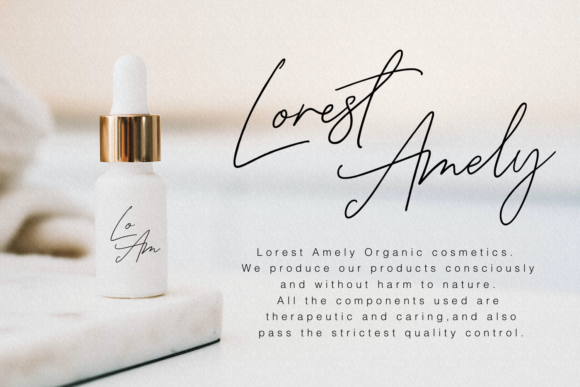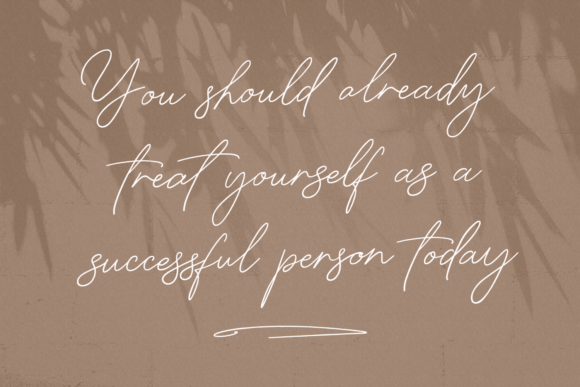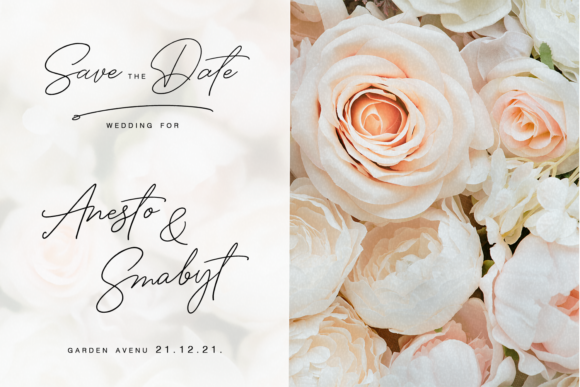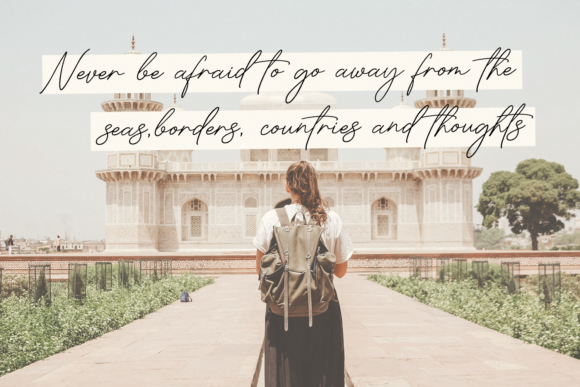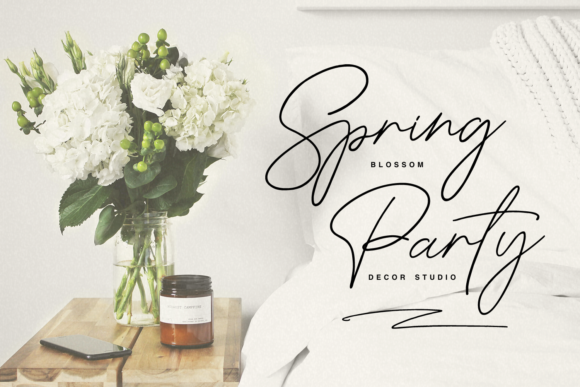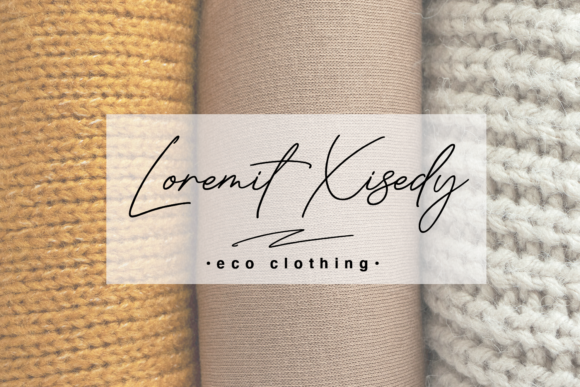
The Perfect Font for Making a Lasting Impression
There’s nothing quite like the thrill of a creative breakthrough – the moment when all the pieces come together and your design takes shape. For many designers, it’s a feeling that never gets old, and it’s what drives us to push the boundaries of what’s possible. Whether you’re crafting a logo, branding a new business, or simply adding a touch of elegance to a quote, the right font can make all the difference.
Enter the Ambitious Font, a stunning script font that’s sure to elevate your designs to the next level. With its thin lines and cursive flair, Ambitious Font is the perfect choice for creating eye-catching logos, branding, and quotes that truly make a statement. Its unique and beautiful touch will breathe life into your design, making it truly unforgettable.
Ambitious Font Key Features
- Font Family: Ambitious Font comes in two font families: Ambitious Regular and Ambitious Bold.
- Size: The font includes a range of 6 font sizes: 12, 14, 16, 18, 20, and 24 points, making it suitable for various design applications.
- Resolution: Ambitious Font is optimized for high-resolution displays, ensuring crisp and clear text at resolutions up to 300 DPI.
- Unique Characteristics: The font features a unique blend of modern and vintage elements, with subtle flair and elegance, making it perfect for creative and design-focused projects.
Review: Ambitious Font
I’ve had the chance to work with the Ambitious Font, and I must say it’s a font with a lot of potential. ✨ One of the things that stood out to me was its versatility – it works well in both headings and body text, making it a great choice for a wide range of projects.
Another feature that I appreciate is its scalability. ✨ Whether you’re using it on a small screen or a large billboard, Ambitious Font looks great at any size. It’s also worth noting that it’s highly customizable, with a wide range of weights and styles available.
- ⚠️ Limited support for languages that require complex typography, such as Arabic or Hebrew.
- ⚠️ Not ideal for use in situations where readability is a top priority, as some of the letters can be quite similar.
- ⚠️ Requires a bit of finesse to use effectively, as it can easily look cluttered or overwhelming if not used carefully.
Overall, I think Ambitious Font is a solid choice for designers who are looking for a font that’s both stylish and versatile. While it may not be perfect, it’s definitely worth considering for the right project.
Tips for Getting the Most Out of Ambitious Font
Use Ambitious Font in combination with bold or italic styles to create emphasis. Experiment with different font sizes to create visual hierarchy. Consider using Ambitious Font in conjunction with other fonts to create a unique and eye-catching design.
Ambitious Font is perfect for creating attention-grabbing headings, titles, or logos. It’s also suitable for use in business cards, brochures, or other marketing materials where a bold and confident look is desired.